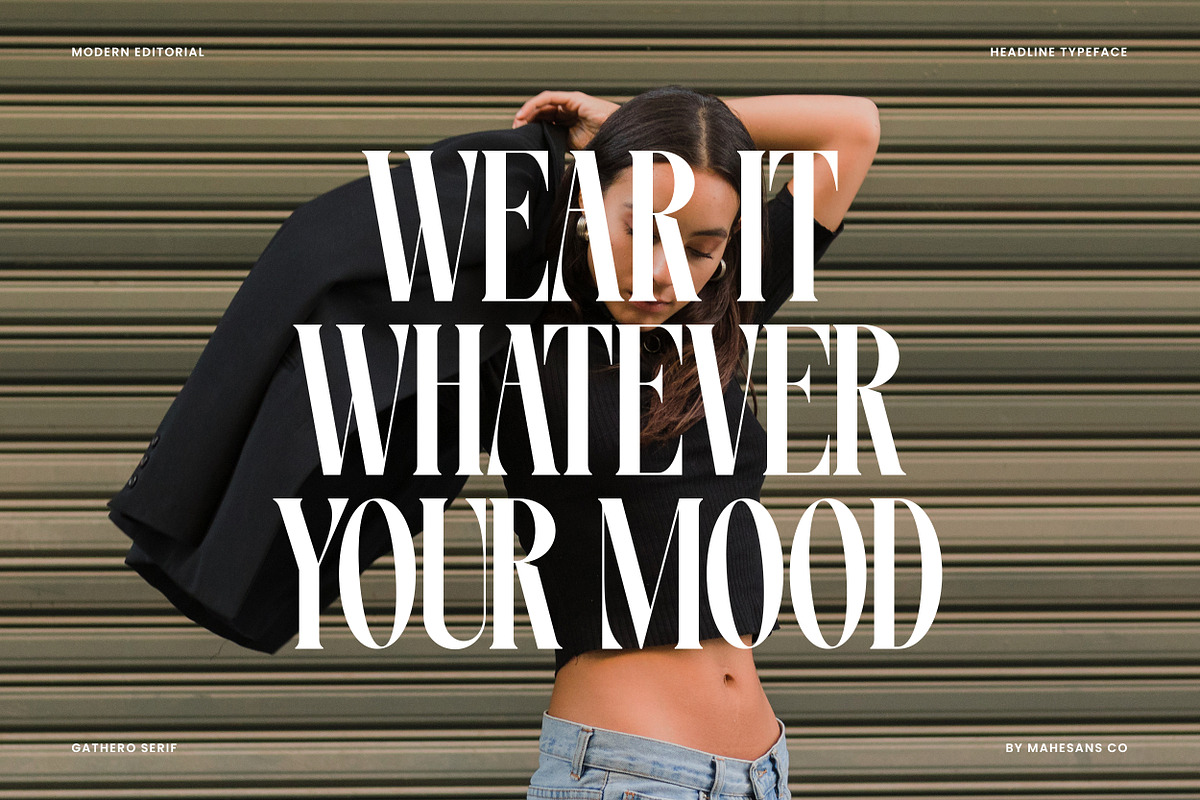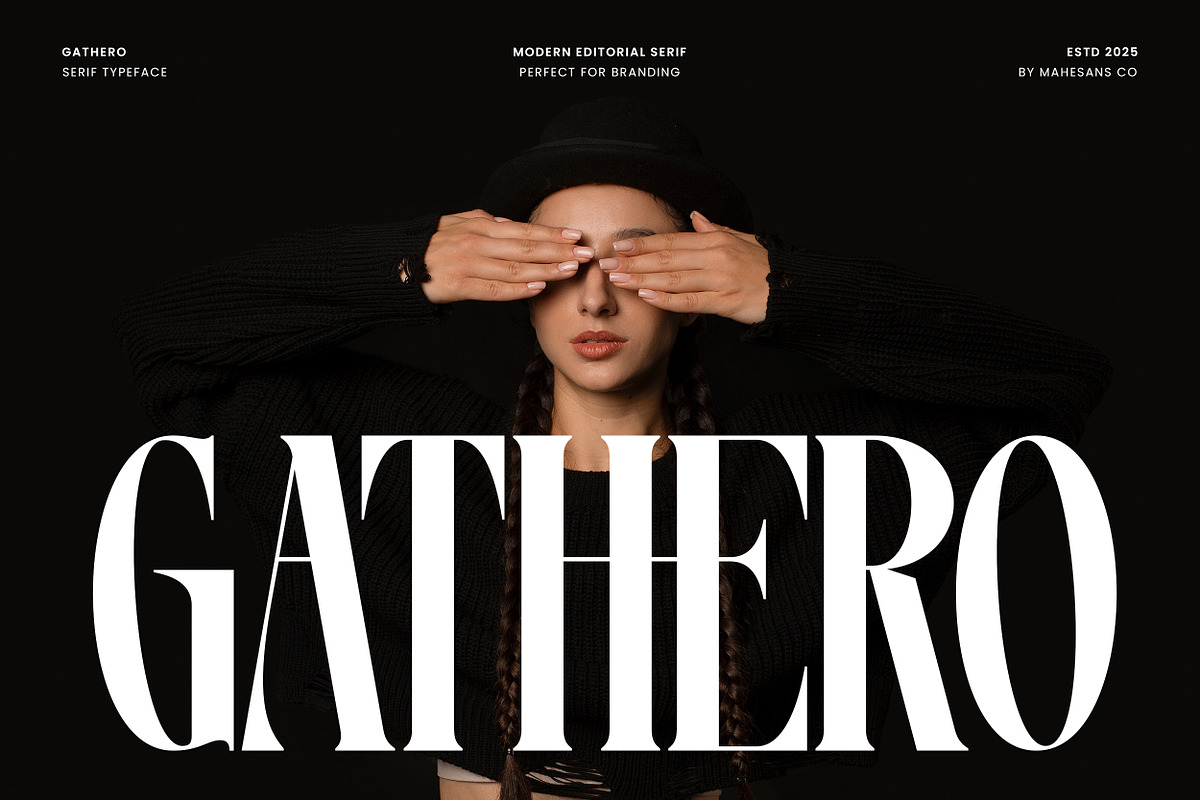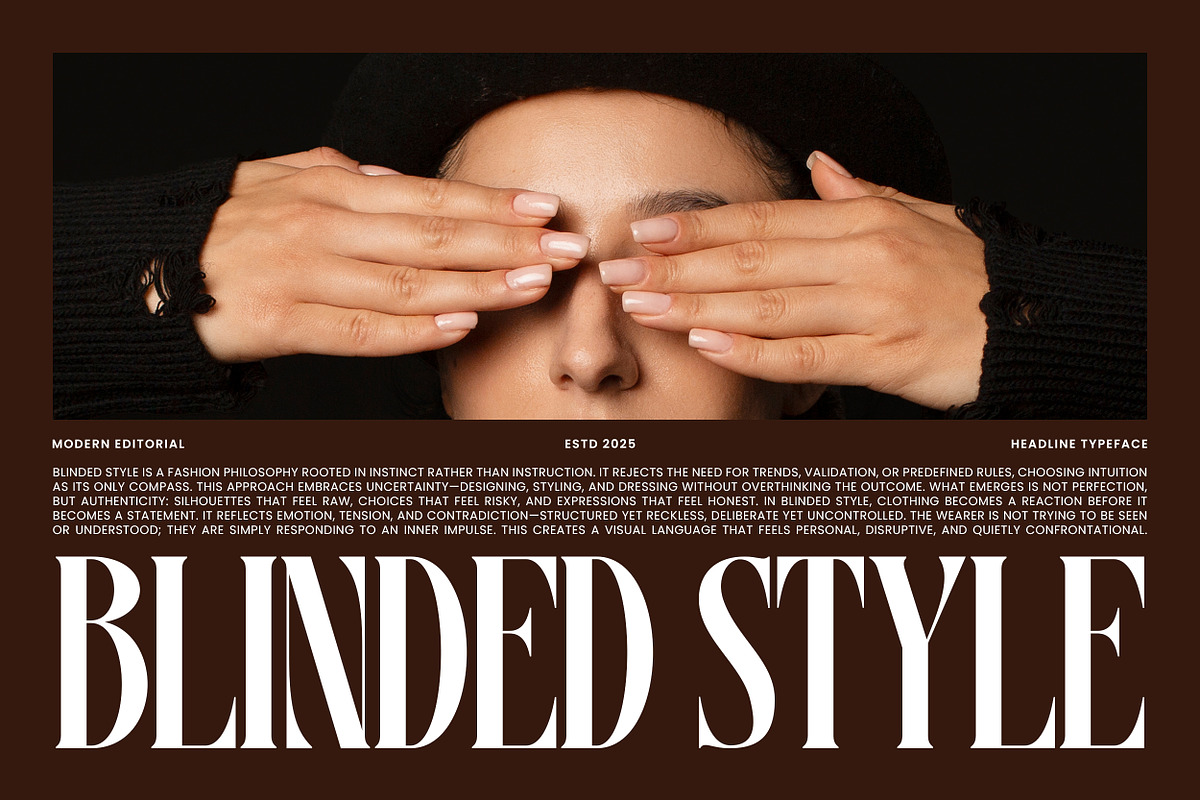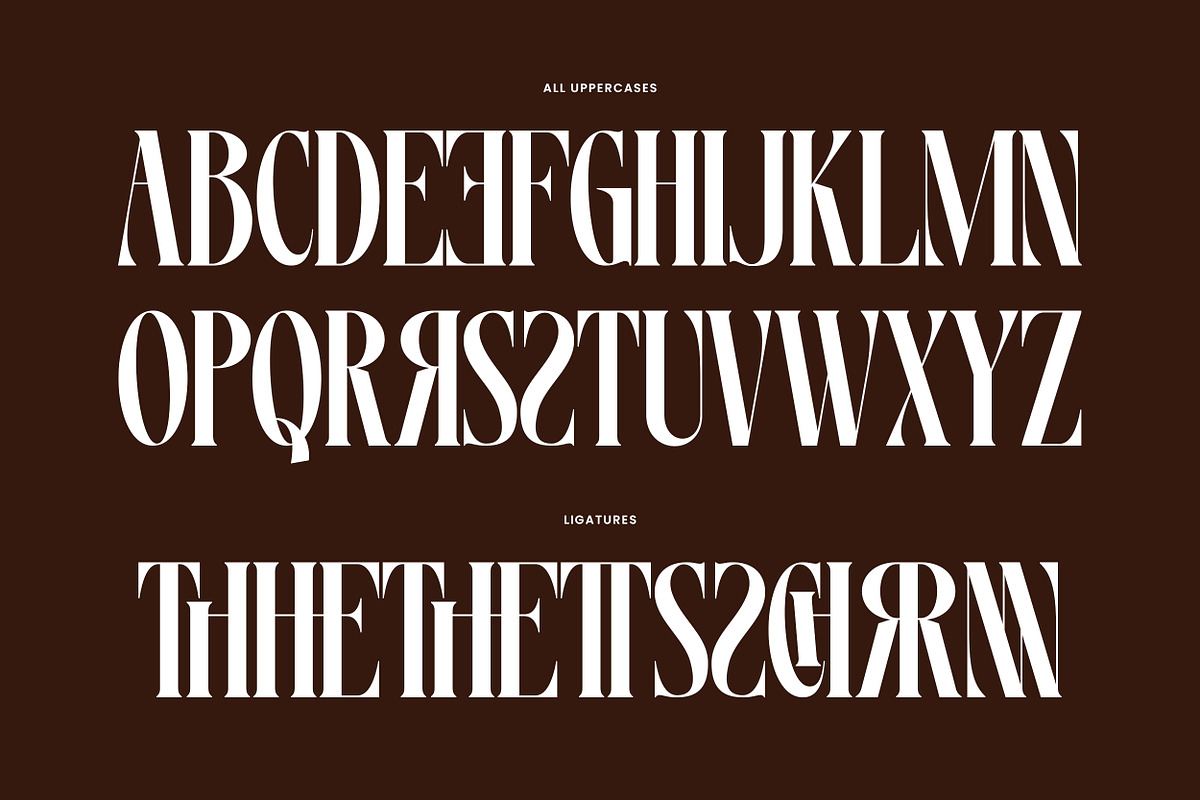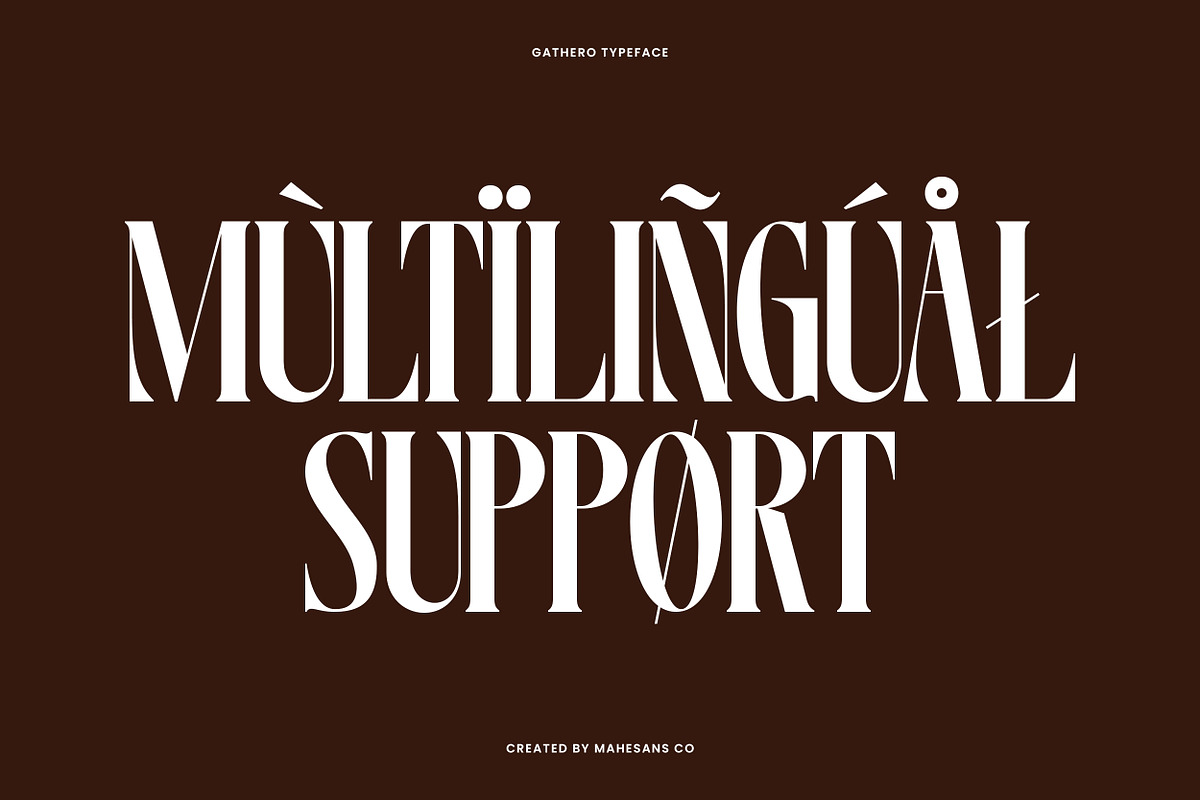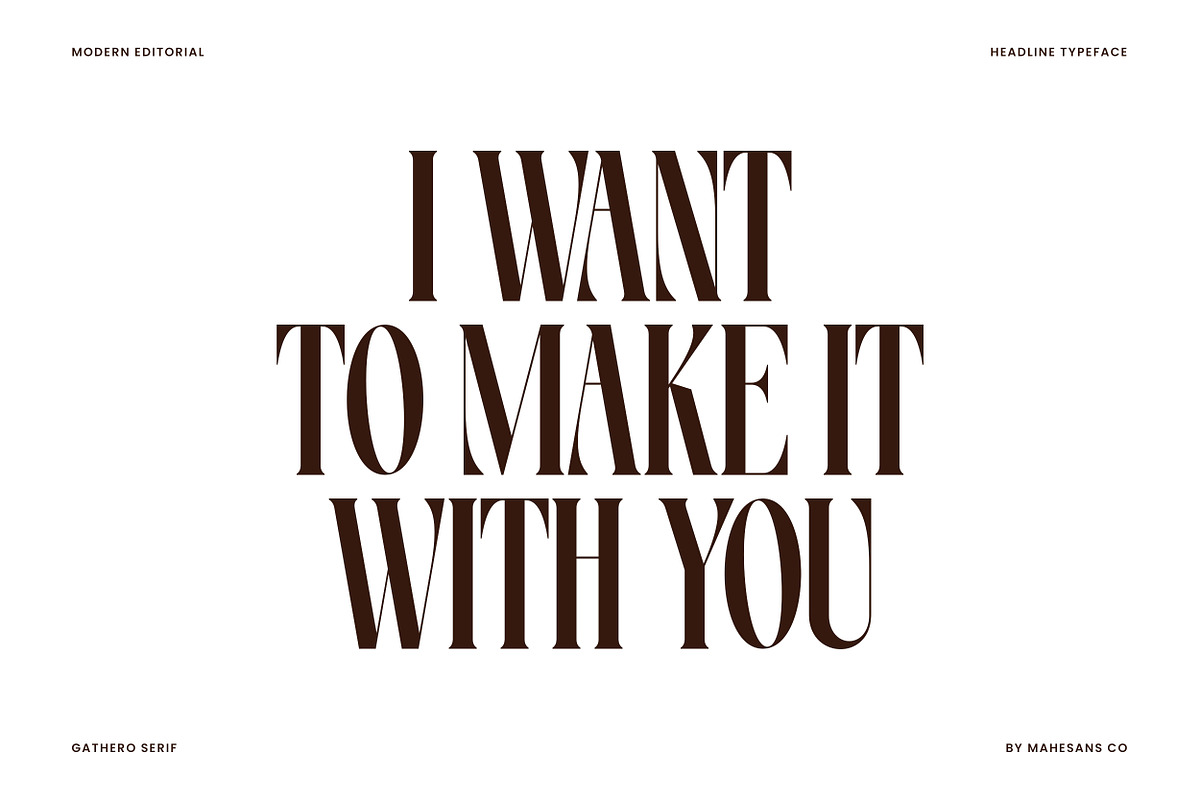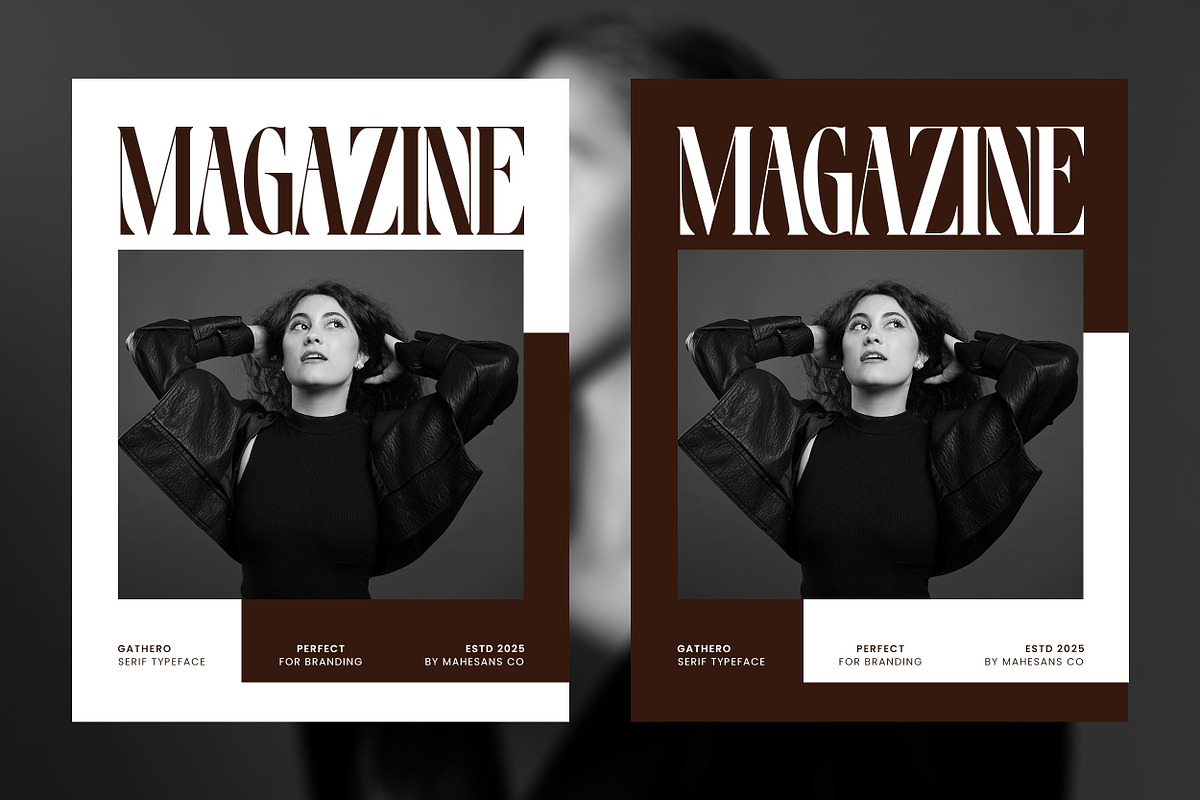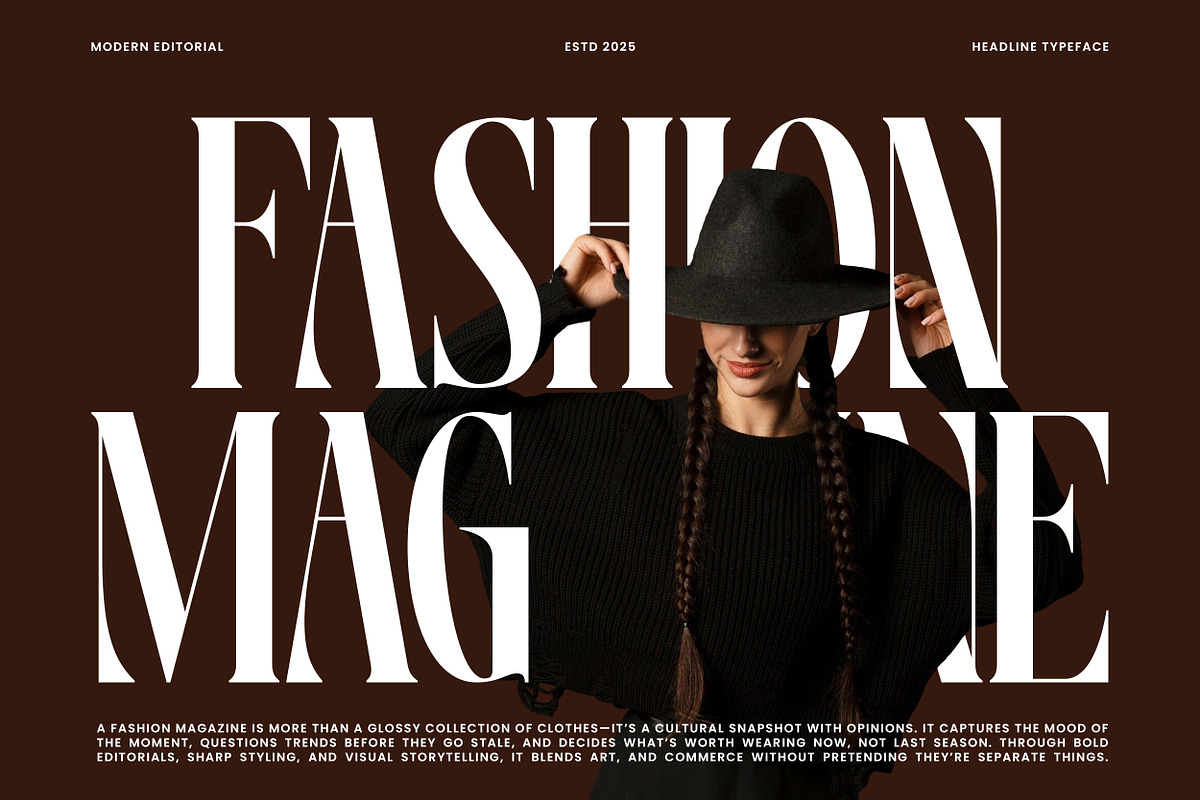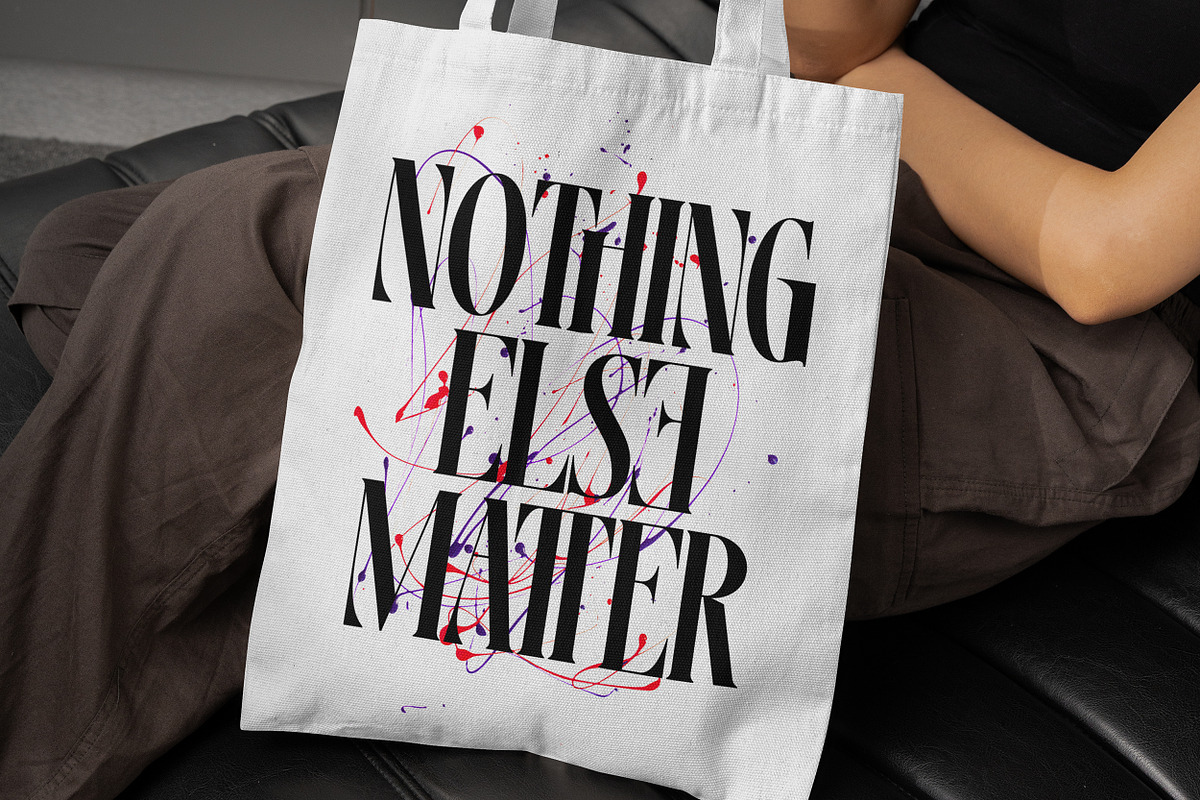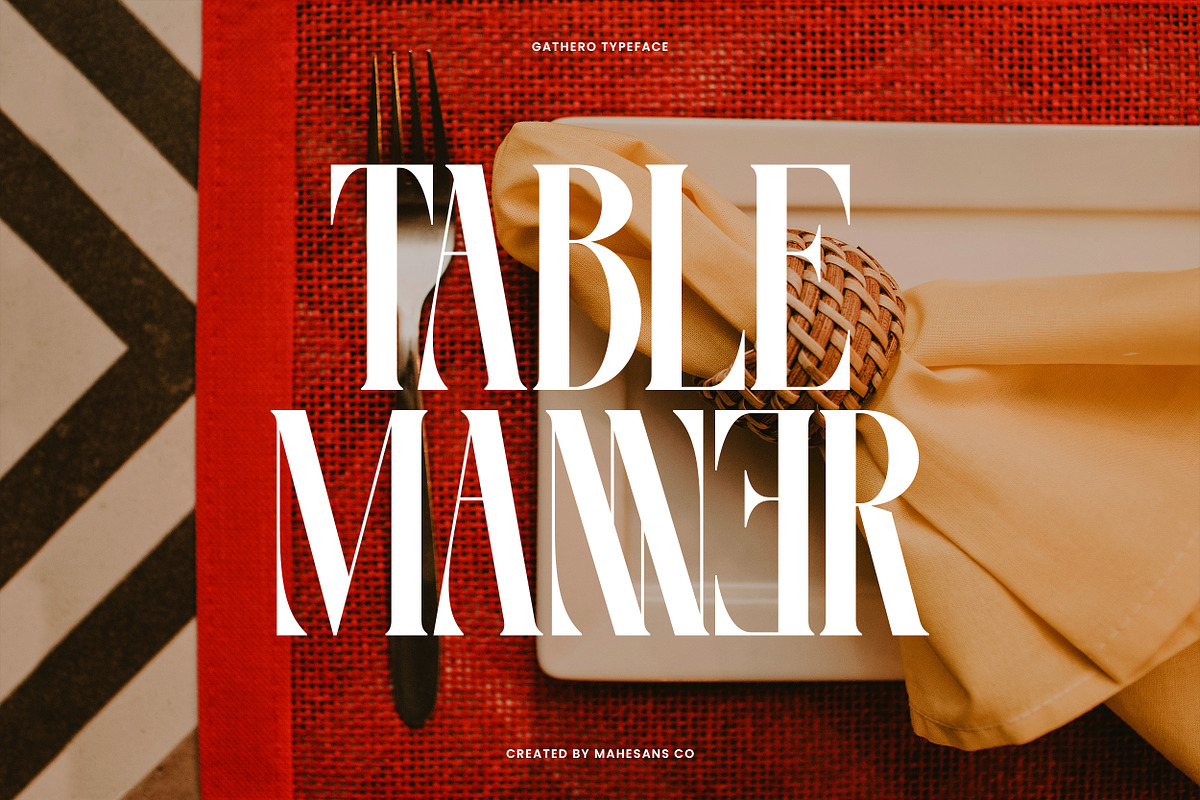
Gathero – Modern Editorial Serif
Gathero is a modern editorial serif typeface crafted for designers who want their work to feel confident, refined, and unapologetically bold. Inspired by high-fashion magazines and contemporary branding, Gathero balances classic serif elegance with sharp, modern proportions.
This typeface shines in headlines, fashion layouts, luxury branding, posters, and editorial projects where typography needs to speak before the content does. Tall letterforms, strong contrast, and carefully shaped curves give Gathero a distinctive presence, clean, stylish, and impossible to ignore.
Gathero includes full uppercase characters, stylish ligatures, and multilingual support, making it versatile for global projects without sacrificing personality. It’s not a shy font—and it doesn’t try to be.
- All Uppercase
- Multilanguage